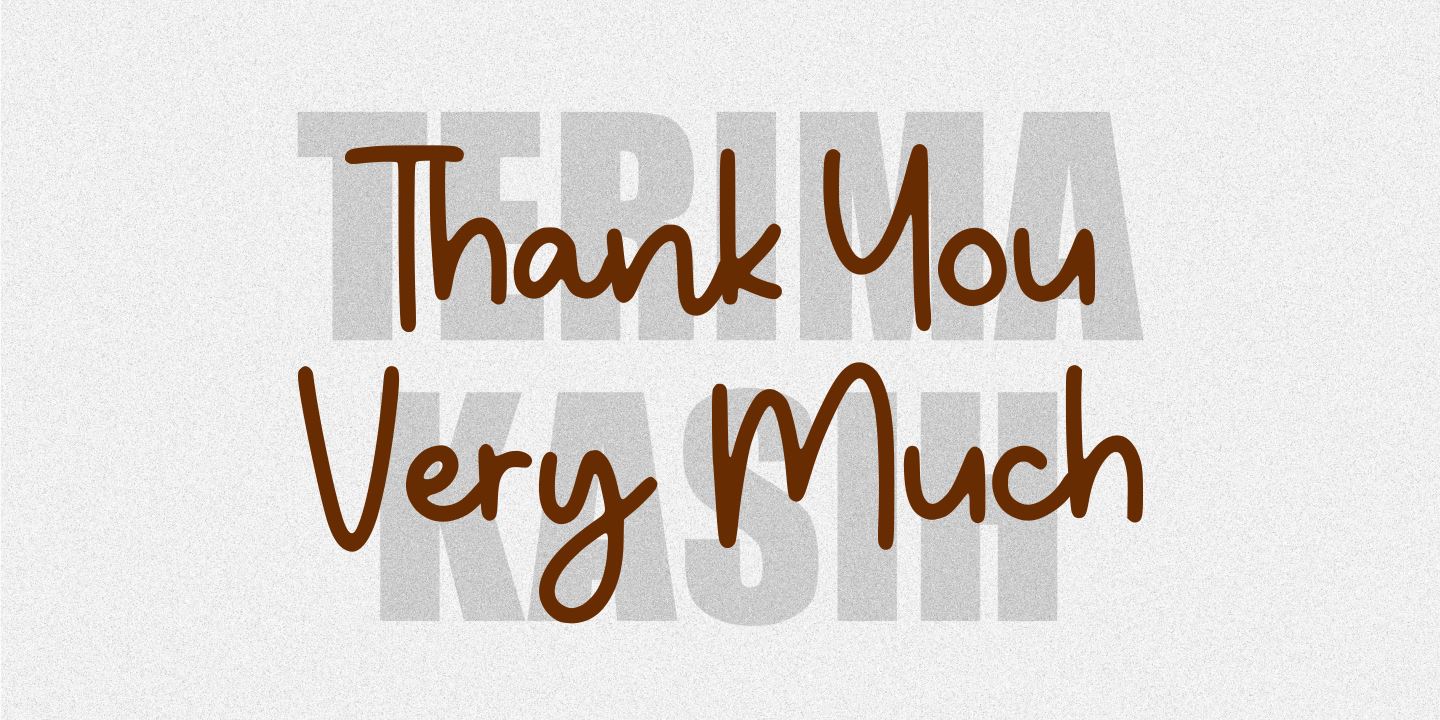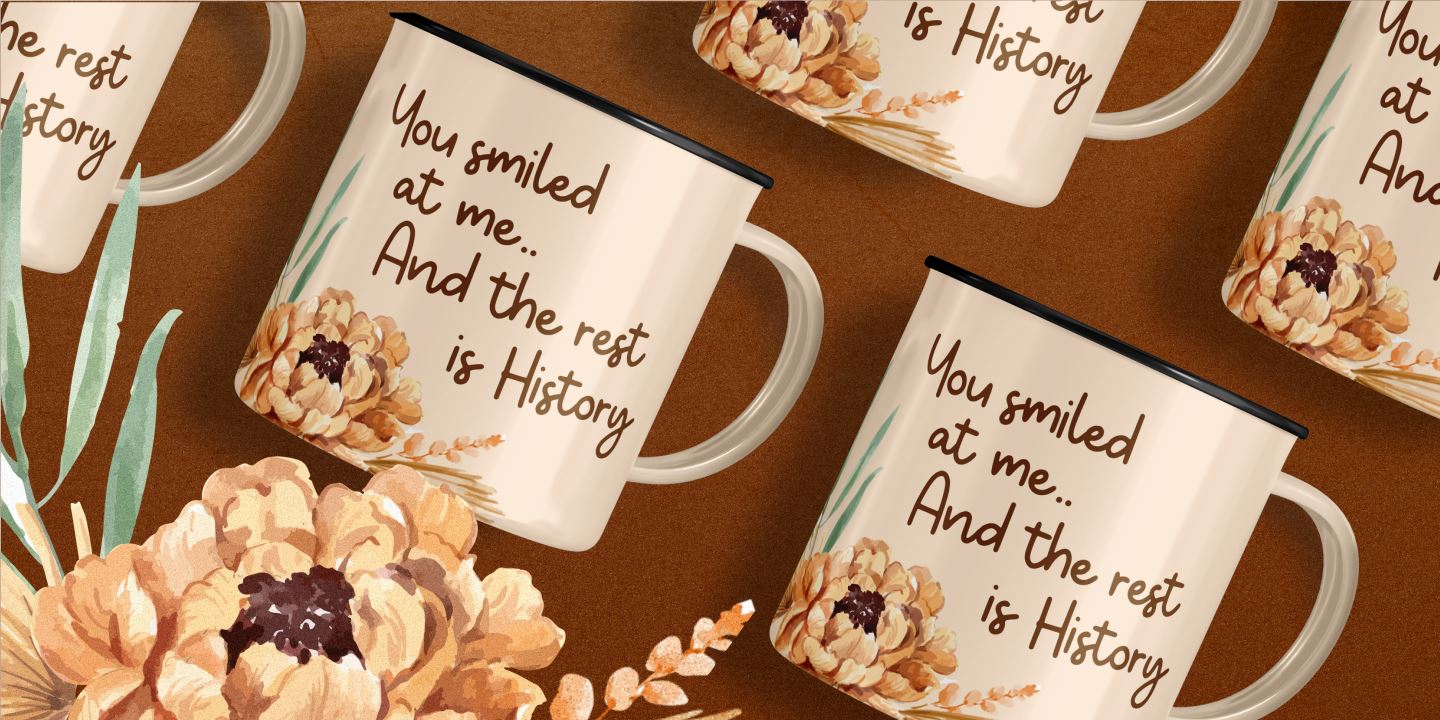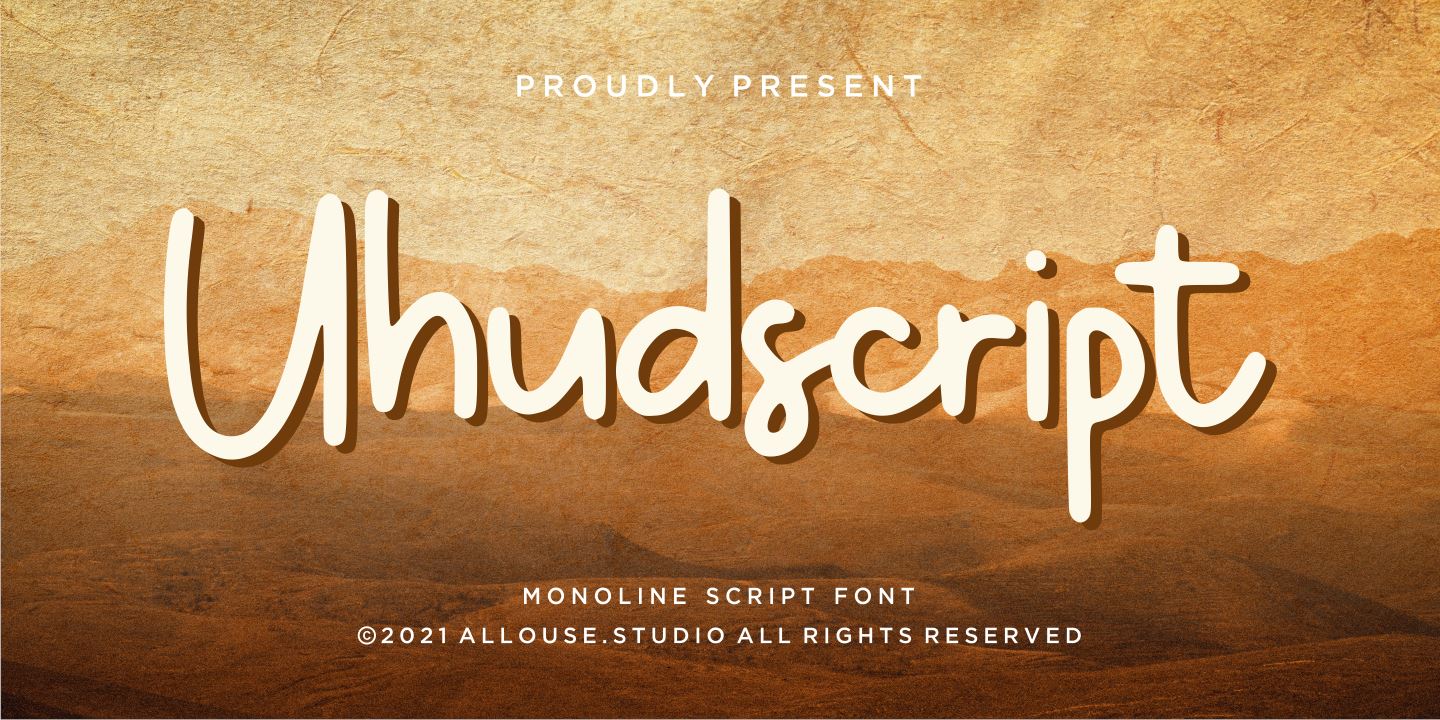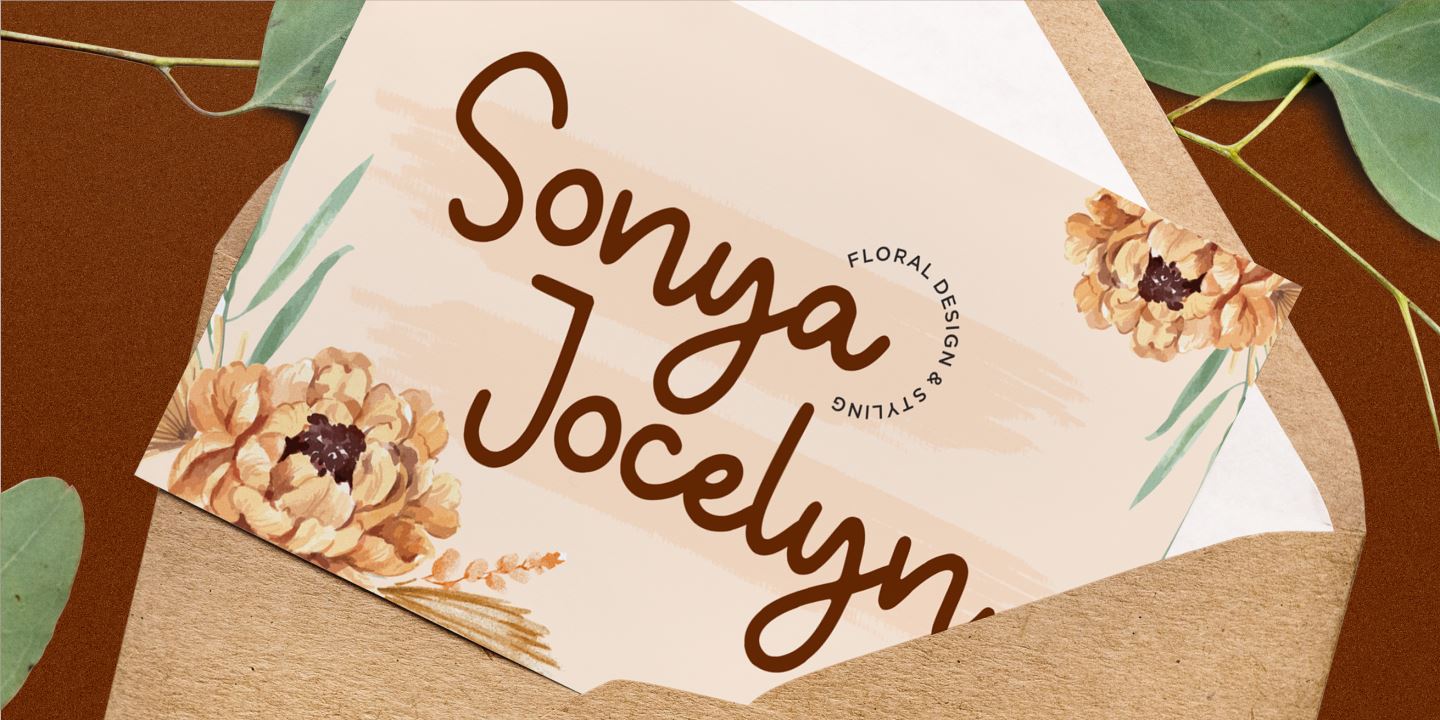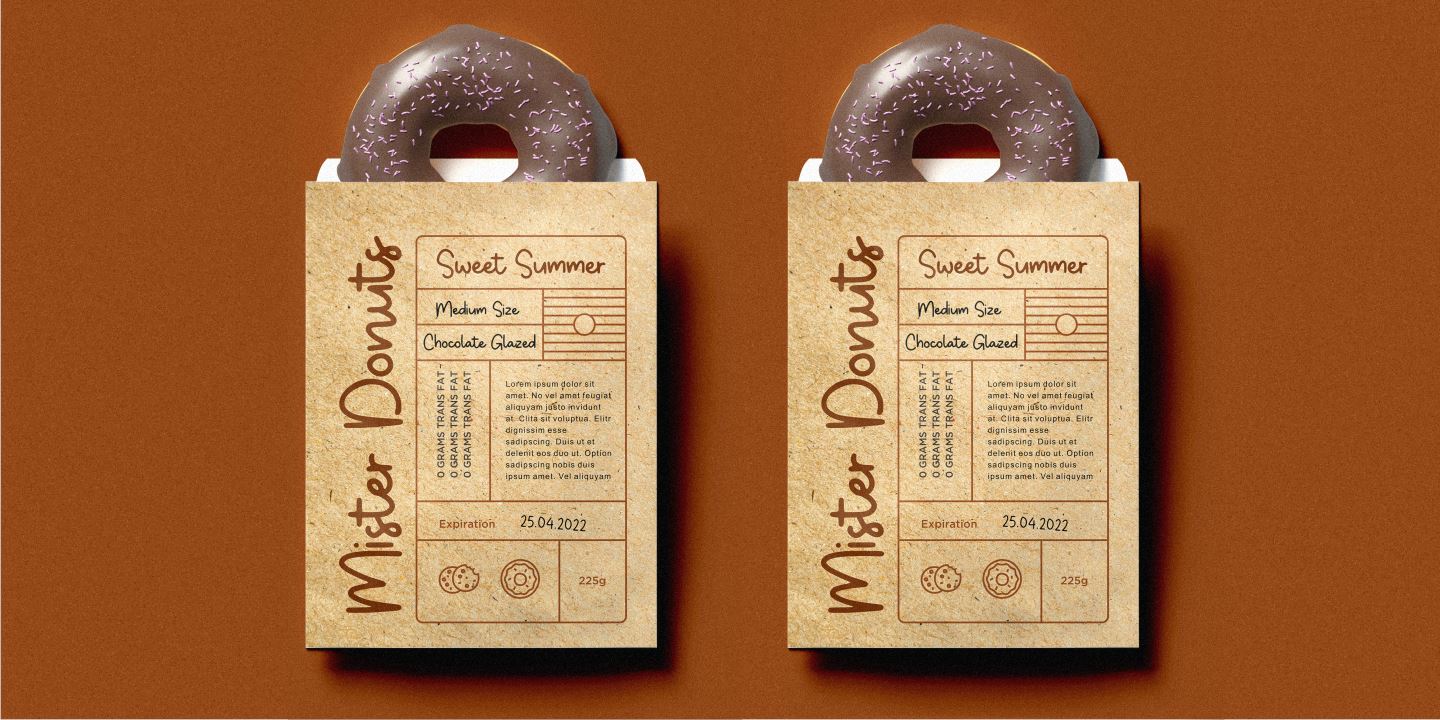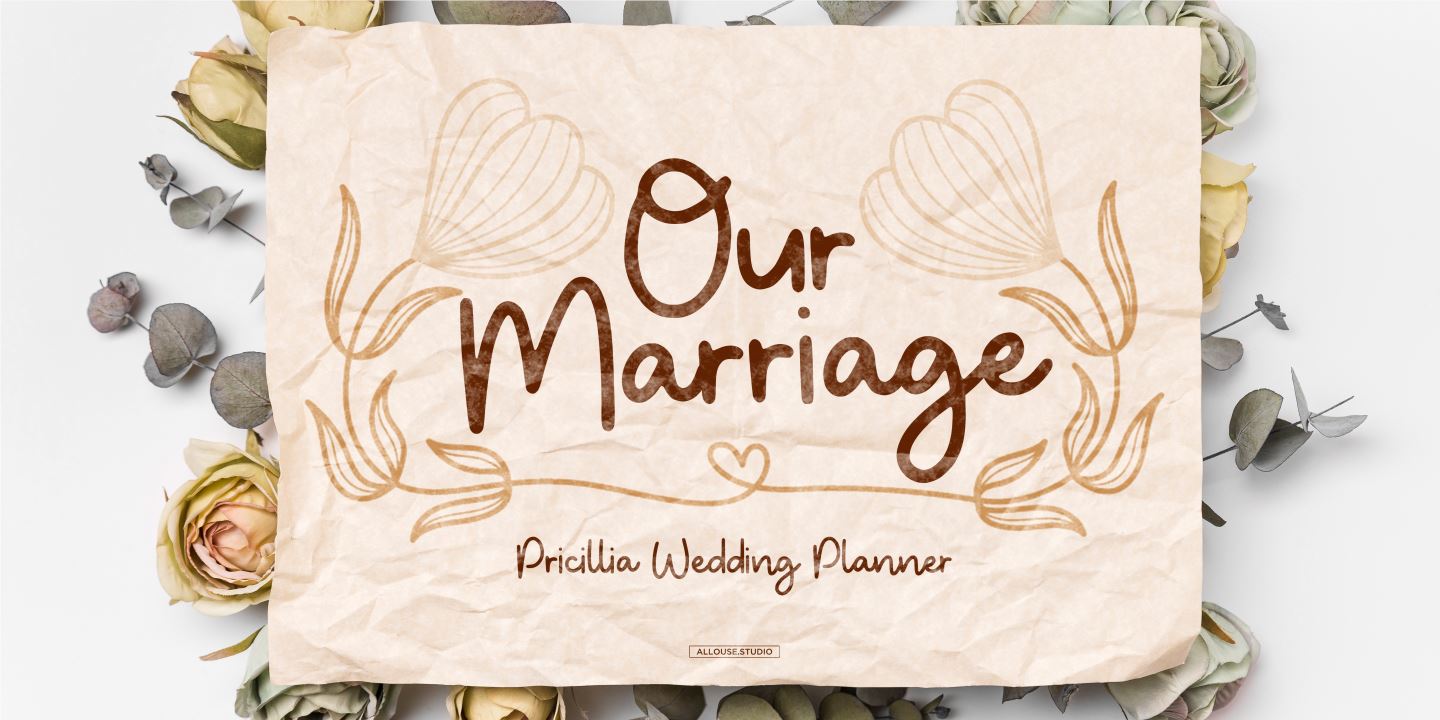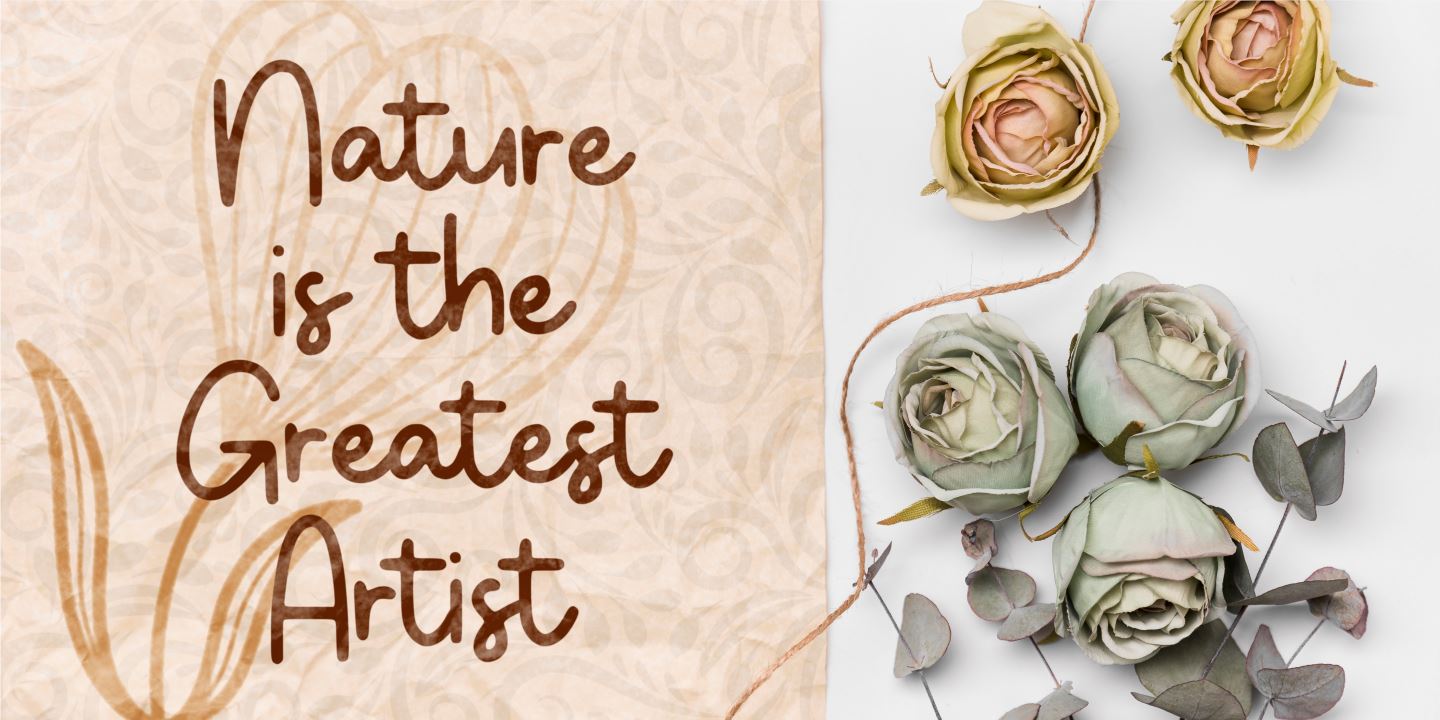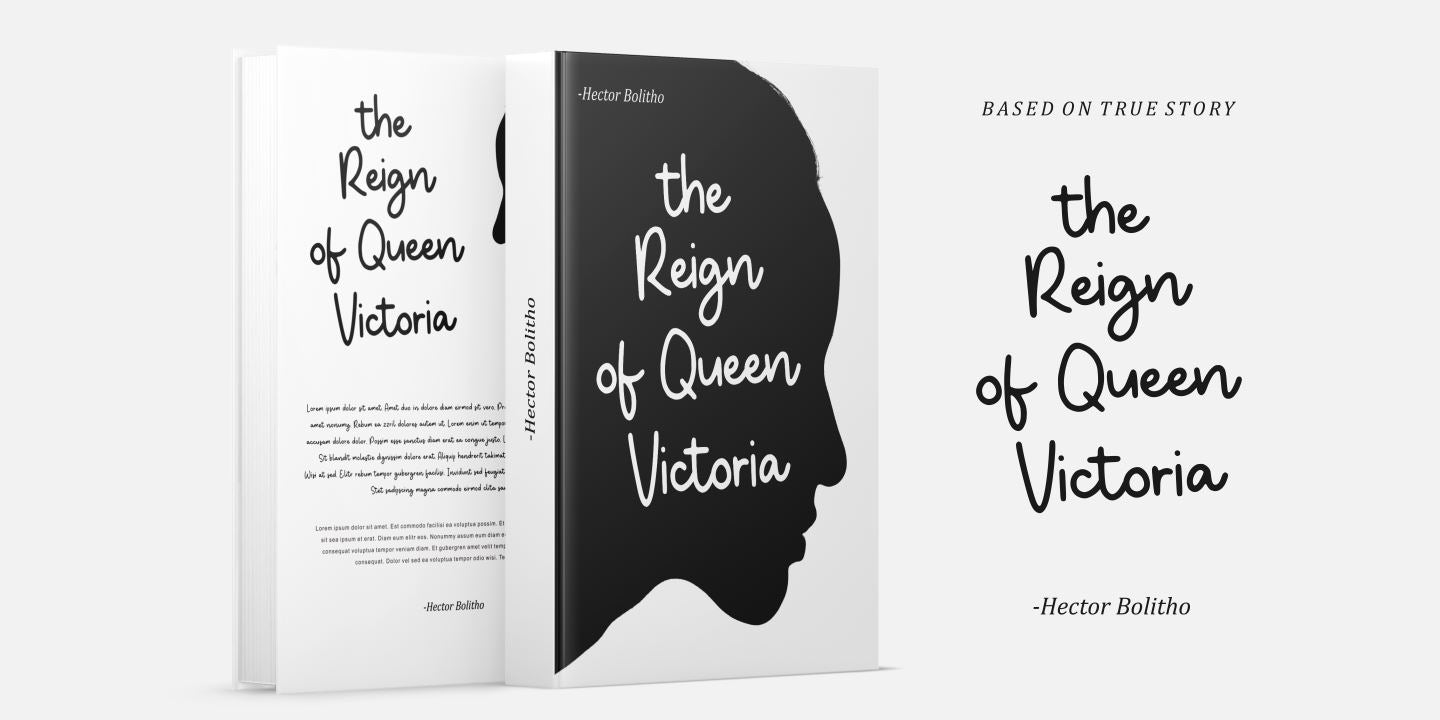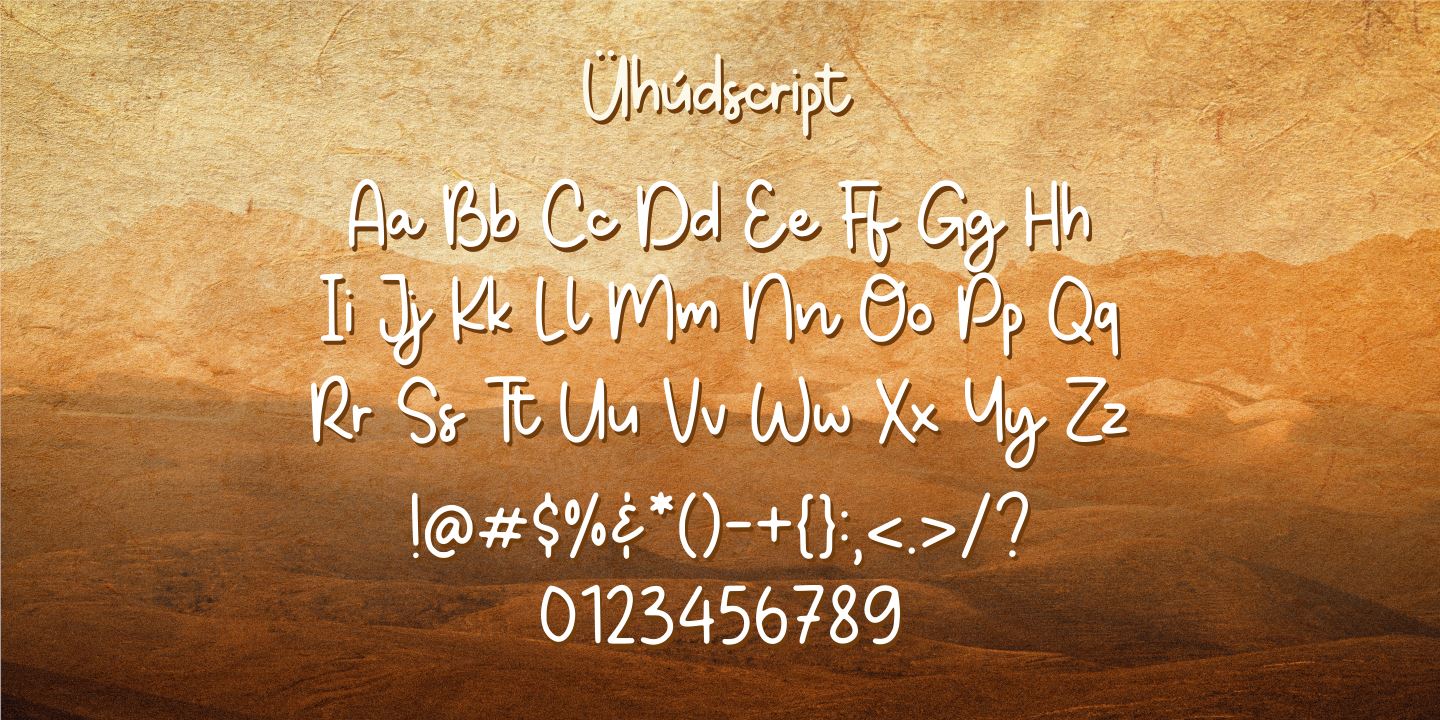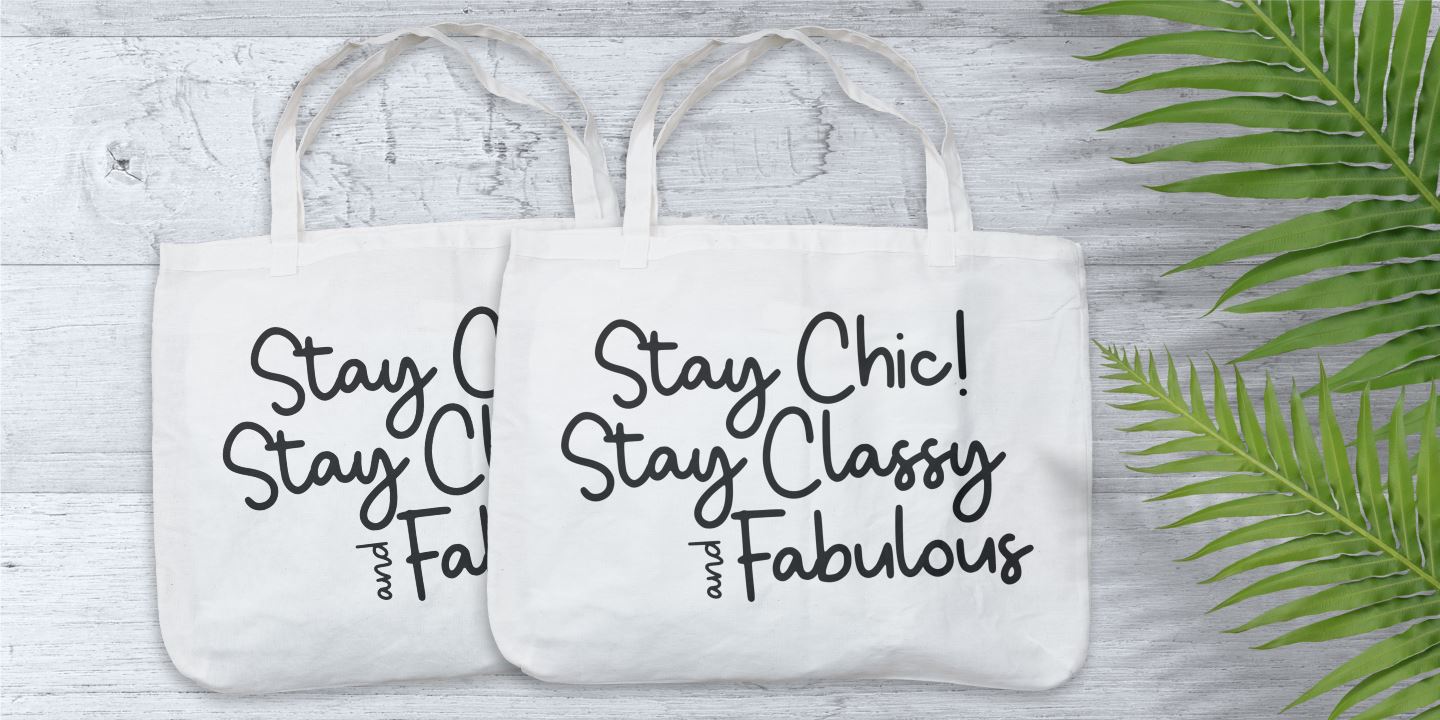
Uhudscript – Monoline
About Uhudscript – Monoline
Proudly Presenting, Uhudscript a Monoline Script Font. Uhudscript is perfect for any titles, logo, product packaging, branding project, megazine, social media, wedding, or just used to express words above the background. Uhudscript also come with Multi-Lingual Support. Enjoy the font, feel free to comment or feedback, send me PM or email. Thank You!